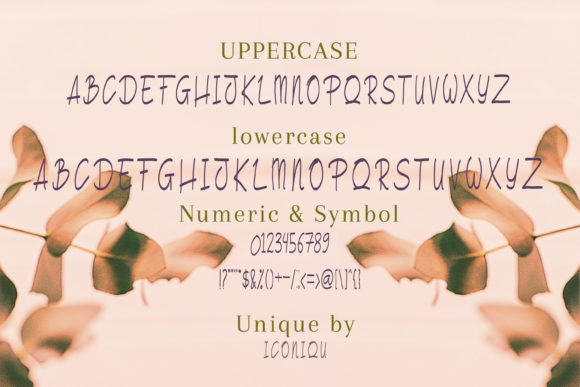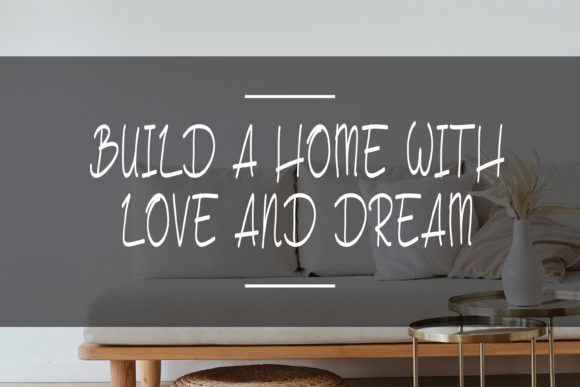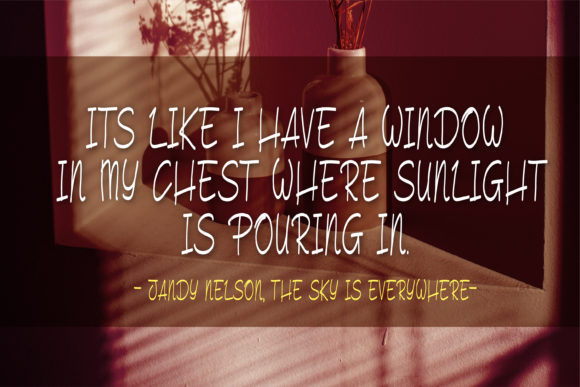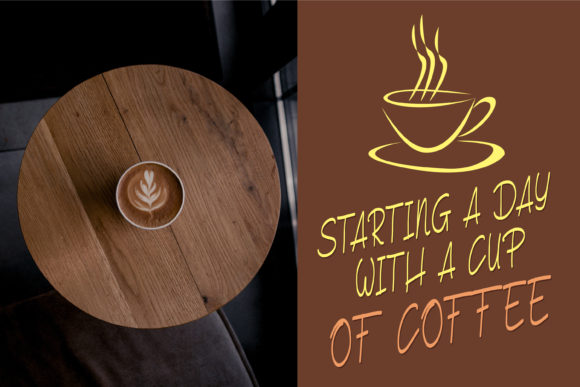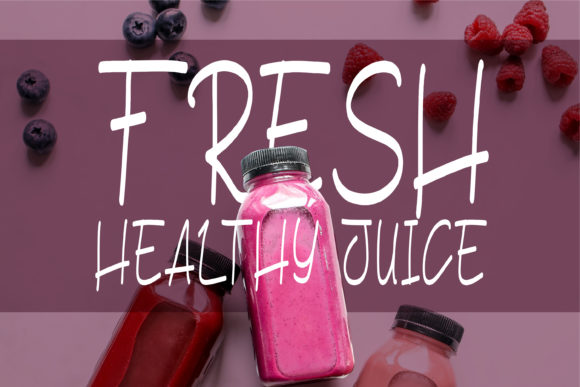
Introducing Beautiful Creature Font: The Perfect Addition to Your Creative Projects
Are you a designer, crafter, or DIY enthusiast looking for a unique and playful font to add to your creative projects? Look no further than Beautiful Creature Font! This thin and fun handwritten font is sure to bring your ideas to life and add a touch of personality to your designs.
What is Beautiful Creature Font?
Beautiful Creature Font is a one-of-a-kind, handcrafted font that is perfect for a variety of creative projects, including handmade cards, invitations, crafts, and more. Its thin and delicate lines give it a whimsical and airy feel, making it ideal for designs that require a touch of elegance and sophistication.
Key Features of Beautiful Creature Font
- Thin and delicate lines: The font’s thin lines give it a light and airy feel, making it perfect for designs that require a touch of elegance and sophistication.
- Fun and playful: Despite its delicate lines, Beautiful Creature Font has a playful and fun vibe that’s perfect for designs that require a bit of personality.
- Handwritten: This font is carefully handcrafted to give it a unique and personal touch that’s hard to find in digital fonts.
- Versatile: Beautiful Creature Font can be used for a wide range of creative projects, from handmade cards and invitations to crafts and more.
How to Use Beautiful Creature Font in Your Designs
Beautiful Creature Font is incredibly easy to use and can be incorporated into your designs in a variety of ways. Here are a few ideas to get you started:
- Handmade cards: Add a personal touch to your handmade cards with Beautiful Creature Font. Use it to write out messages, titles, or even create custom card fronts.
- Invitations: Create custom invitations for parties, weddings, and other special events using Beautiful Creature Font. Its elegant and sophisticated feel makes it perfect for formal events.
- Crafts: Add a touch of personality to your crafts with Beautiful Creature Font. Use it to create custom labels, tags, or even decorate your craft projects with handwritten titles and phrases.
- Digital designs: Beautiful Creature Font can also be used in digital designs, such as social media graphics, blog posts, and more.
Tips for Getting the Most Out of Beautiful Creature Font
Here are a few tips for getting the most out of Beautiful Creature Font:
- Experiment with different colors: Beautiful Creature Font looks great in a variety of colors, so don’t be afraid to experiment and find the perfect hue for your design.
- Mix and match with other fonts: Combine Beautiful Creature Font with other fonts to create a unique and visually interesting design.
- Use it sparingly: While Beautiful Creature Font is beautiful, it can be overwhelming if used too much. Use it sparingly to add a touch of personality to your designs.
| Font Name | Beautiful Creature Font |
| Author | iconiqu |
Beautiful Creature Font is a unique and playful font that’s perfect for designers, crafters, and DIY enthusiasts. Its thin and delicate lines give it a whimsical and airy feel, making it ideal for designs that require a touch of elegance and sophistication. With its versatility, ease of use, and range of creative applications, Beautiful Creature Font is sure to become a favorite in your design toolkit. So why wait? Add Beautiful Creature Font to your most creative ideas and watch them come alive!